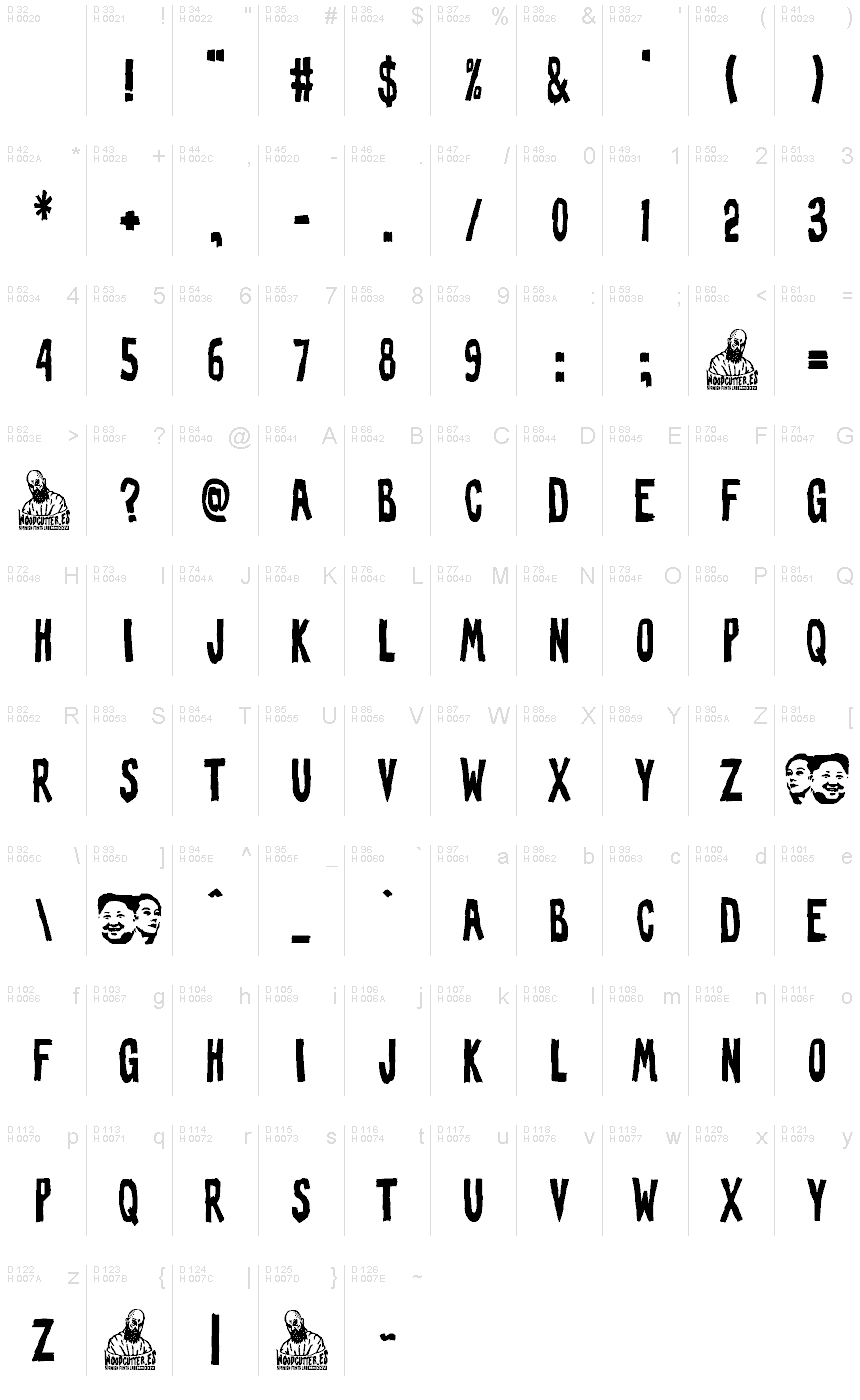
The Bride of the Leader
The Bride of the Leader font by Woodcutter is a display typeface with a scary, brush design. Its condensed width and impactful presence give it a grungy look that can make any text instantly appear horror-like. Multiple visual characteristics make up this font’s aesthetics such as its distressed texture, theatrical flair, and noisy overall feel.
Using this free display font in retro horror projects is smart for all the right reasons. Since it provides cinematic elements, it works perfectly for posters, headline typography, book covers for scary novels, cinema ticket typography or backdrops. Other use cases include album cover design for Halloween-song compilations and festival graphics.